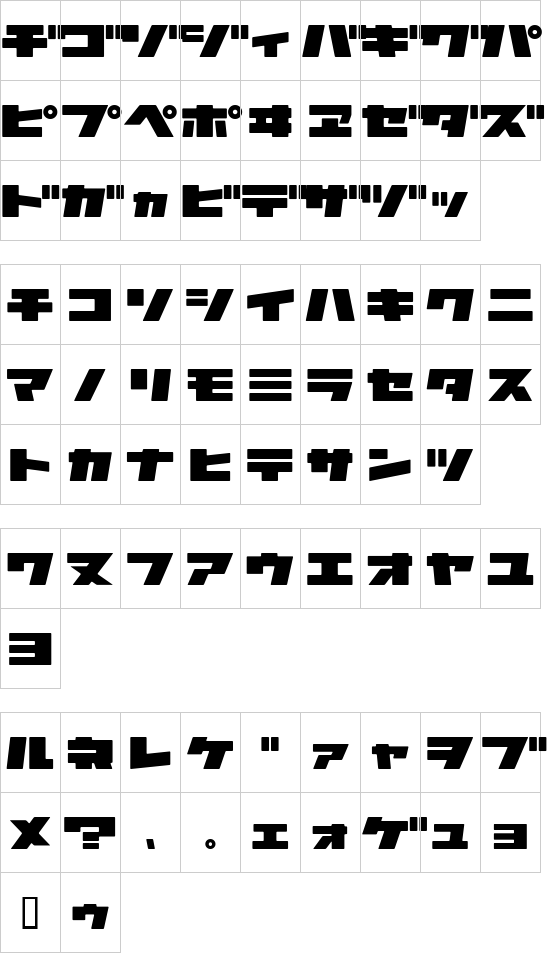
Astro3AL
About Astro3AL
Astro3AL is a square sci-fi font with rigid, geometric letters that feel mechanical and futuristic. The forms are built from straight lines and hard corners with a boxy, engineered structure, suggesting control panels and spacecraft displays rather than soft type.
Its blocky precision suits tech branding, game UI, space-themed posters, and graphics that want a cold, engineered look. Astro3AL is free to download as a TrueType file, and you can preview your own text on the page to see how the square, mechanical letters read in a title or interface label before you download and use them.